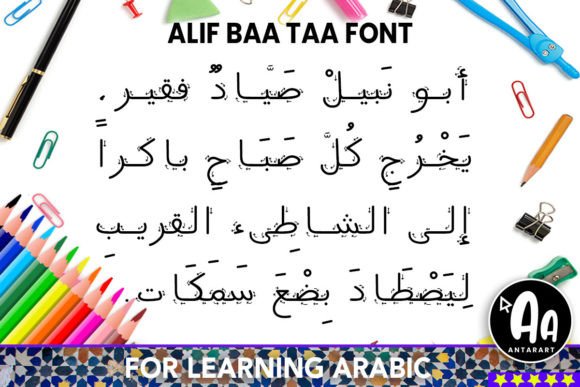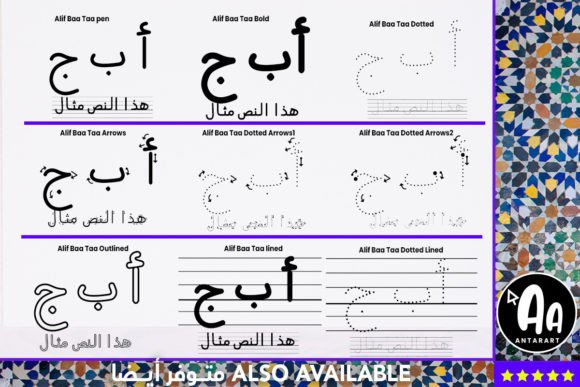
Introducing Alif Baa Taa Arrows Font: A Handwritten Arabic Font for Learning and Creativity
Are you interested in the Arabic language or looking for a unique font to add to your design projects? Look no further than Alif Baa Taa Arrows Font, a handwritten Arabic font designed to help you teach and learn Arabic or create thousands of Arabic worksheets using any software. This font is a great learning resource for those who are interested in the Arabic language, and its versatility makes it perfect for designers, crafters, and educators alike.
What is Alif Baa Taa Arrows Font?
Alif Baa Taa Arrows Font is a carefully crafted handwritten Arabic font that features a distinctive and easy-to-read style. The font includes arrows to help learners understand the correct pronunciation and flow of Arabic letters, making it an excellent tool for teaching and learning Arabic. The font is designed to be highly legible, even at small sizes, making it perfect for creating worksheets, educational materials, and other documents.
Key Features of Alif Baa Taa Arrows Font
• Handwritten style: Alif Baa Taa Arrows Font features a unique and authentic handwritten style that is easy to read and understand.
• Arrows for guidance: The font includes arrows that indicate the correct pronunciation and flow of Arabic letters, making it easier for learners to understand and practice.
• Highly legible: The font is designed to be highly legible, even at small sizes, making it perfect for creating worksheets, educational materials, and other documents.
Uses for Alif Baa Taa Arrows Font
Alif Baa Taa Arrows Font is a versatile font that can be used in a variety of ways, including:
• Teaching and learning Arabic: The font is designed to help learners understand the correct pronunciation and flow of Arabic letters, making it an excellent tool for teaching and learning Arabic.
• Creating Arabic worksheets: The font can be used to create thousands of Arabic worksheets using any software, making it a great resource for educators and homeschoolers.
• Design projects: The font’s unique and authentic handwritten style makes it perfect for adding a touch of Arabic flair to design projects, such as logos, brochures, and posters.
• Crafting and scrapbooking: The font can be used to add a personal touch to craft and scrapbooking projects, such as journaling and card-making.
Alif Baa Taa Arrows Font offers a range of benefits for designers and crafters, including:
• Unique and authentic style: The font’s handwritten style adds a touch of authenticity and uniqueness to design projects.
• Versatility: The font can be used in a variety of ways, from teaching and learning Arabic to creating design projects and crafts.
Font Name Alif Baa Taa Arrows Font
Author AntarArt
Alif Baa Taa Arrows Font is a valuable resource for anyone interested in the Arabic language or looking for a unique font to add to their design projects. Its handwritten style, arrows for guidance, and high legibility make it an excellent tool for teaching and learning Arabic, while its versatility makes it perfect for designers, crafters, and educators alike. Whether you’re looking to create Arabic worksheets, design projects, or crafts, Alif Baa Taa Arrows Font is a great choice.